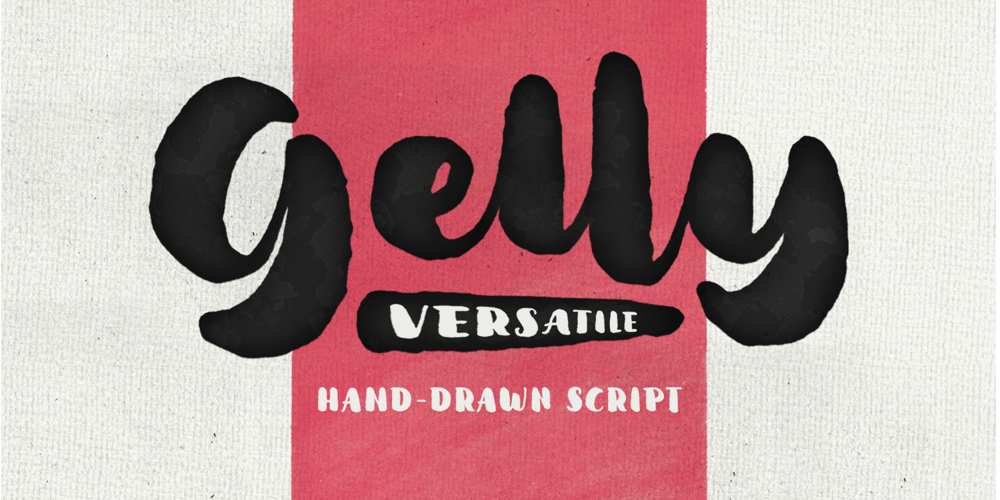
Gelly
Gelly font
Gelly Font Family was designed by Angga Kristiandri and published by Abbasy Studio. Gelly contains 2 styles and family package options. Gelly Script is a modern calligraphy script . Inspired by the modern calligraphy lettering and watercolor brush. This fonts have 2 version Regular and Stipple also dancing baseline to ensure that is modern calligraphy lettering style. The basic principle of creation is striping of thick and thin lines. This fonts is also have alternative characters, contextual alternates, when meets the same letter. Those all will make you work easily to create : Posters, Logos, Print, Quotes, Headers, Clothing, etc.